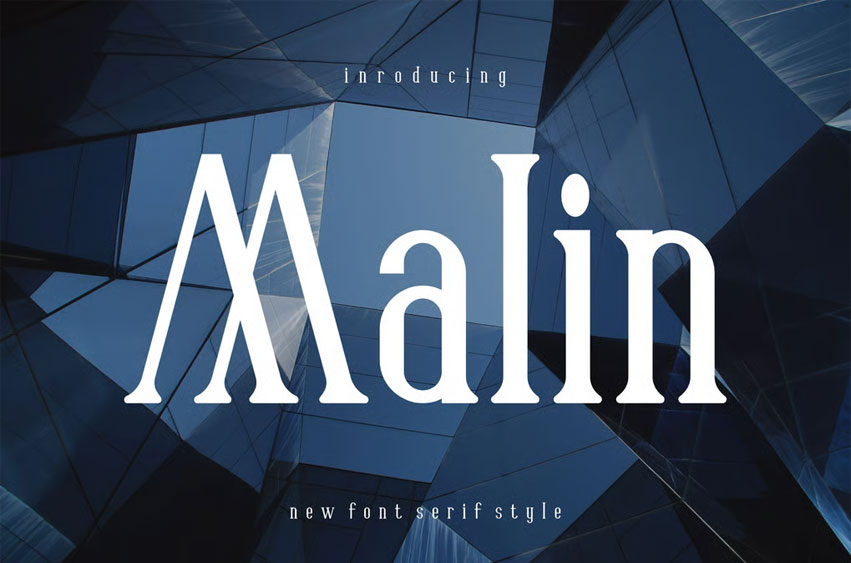
Malin Font Serif Font Display Font Logo is an awesome and authentic display font. Every letter has a unique and beautiful touch, which will make your design come alive!